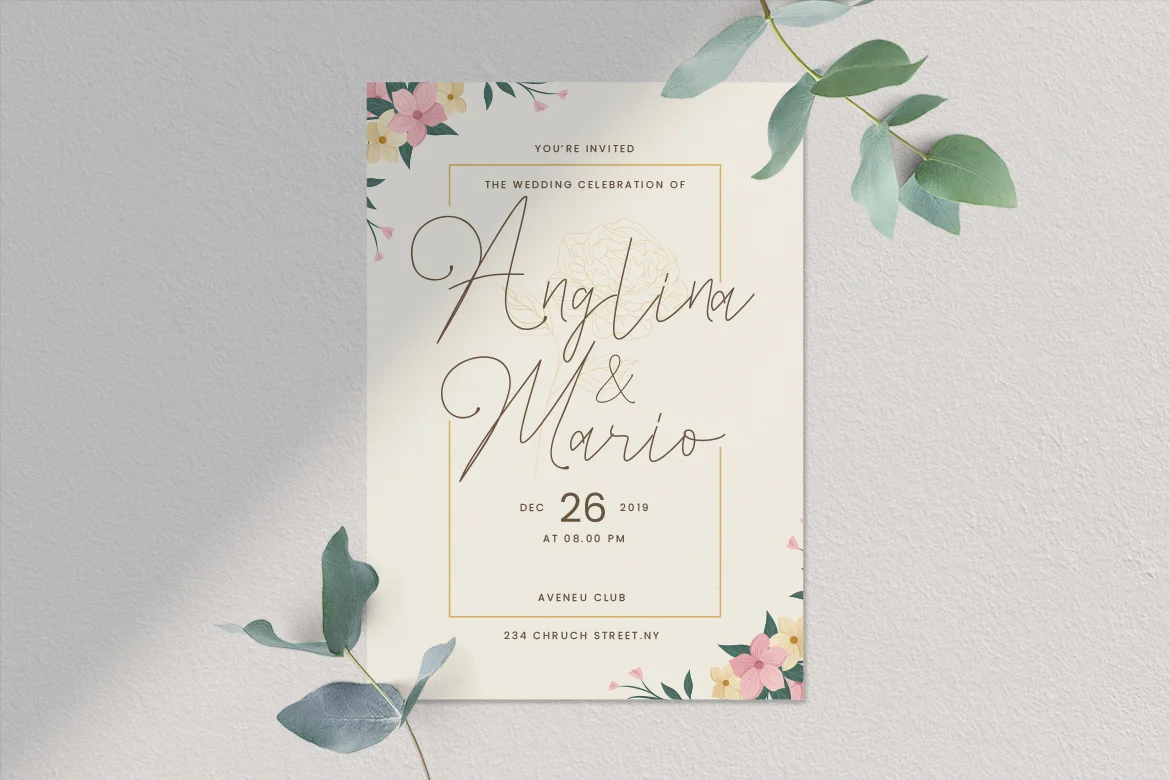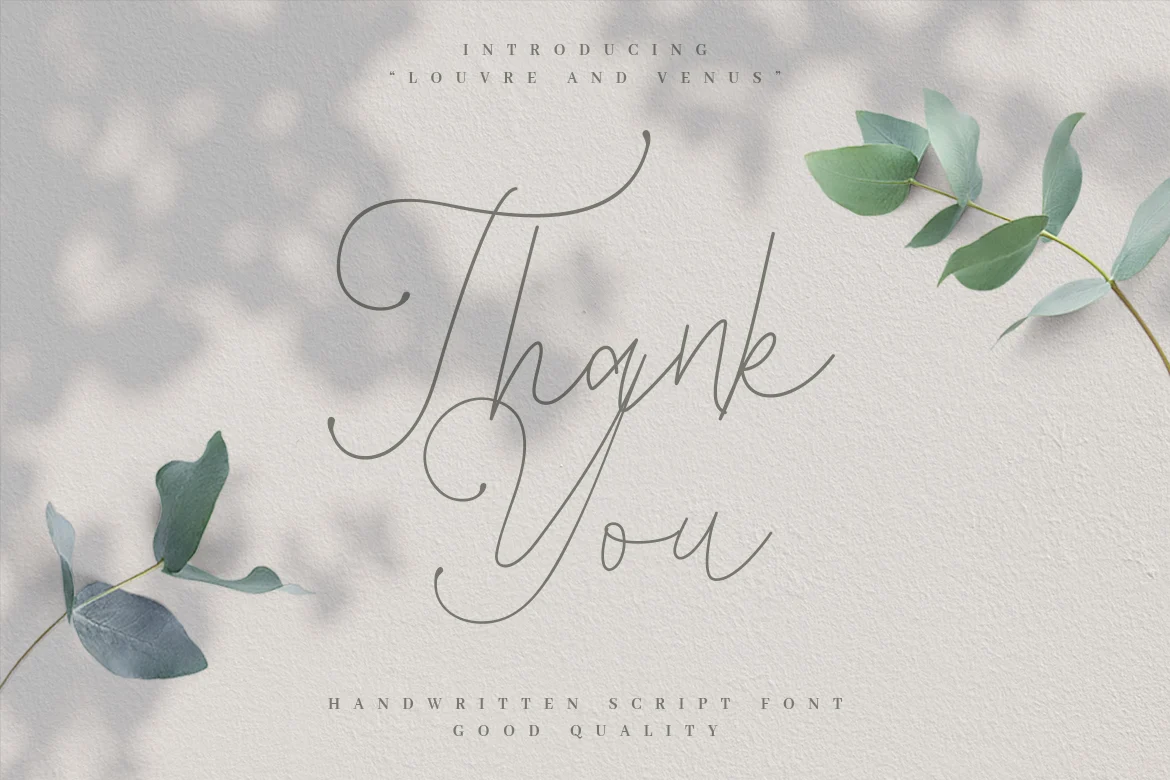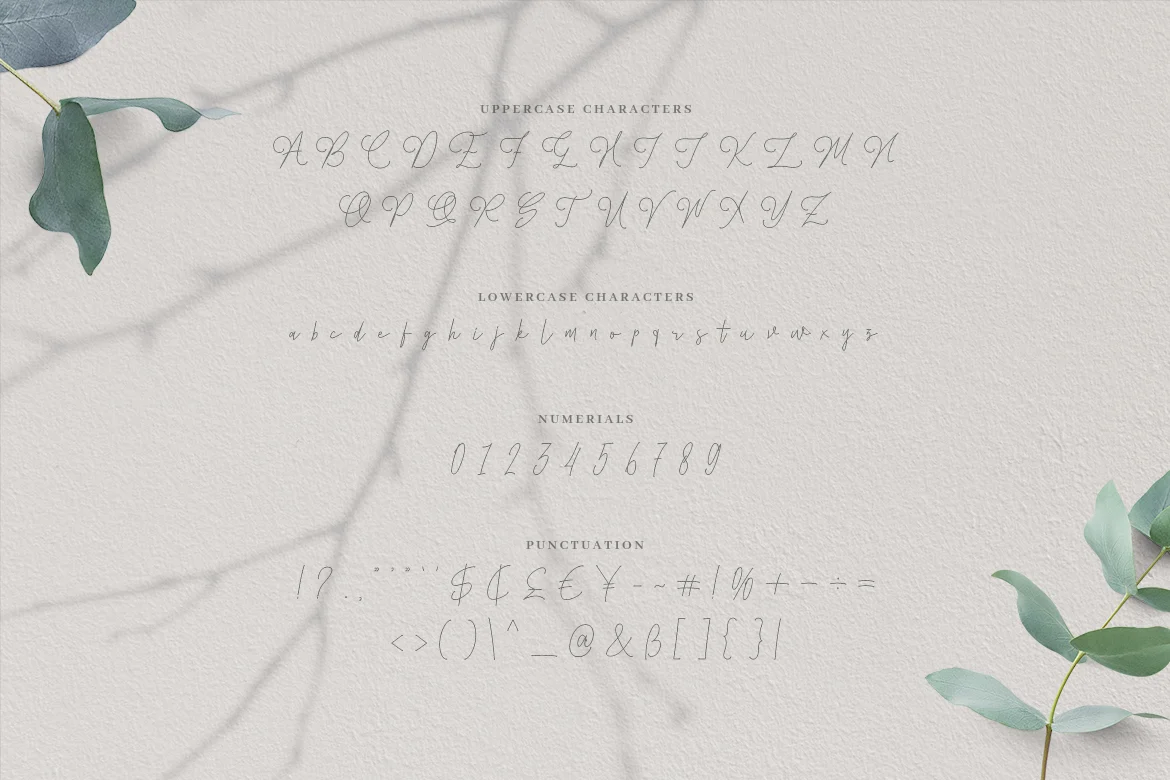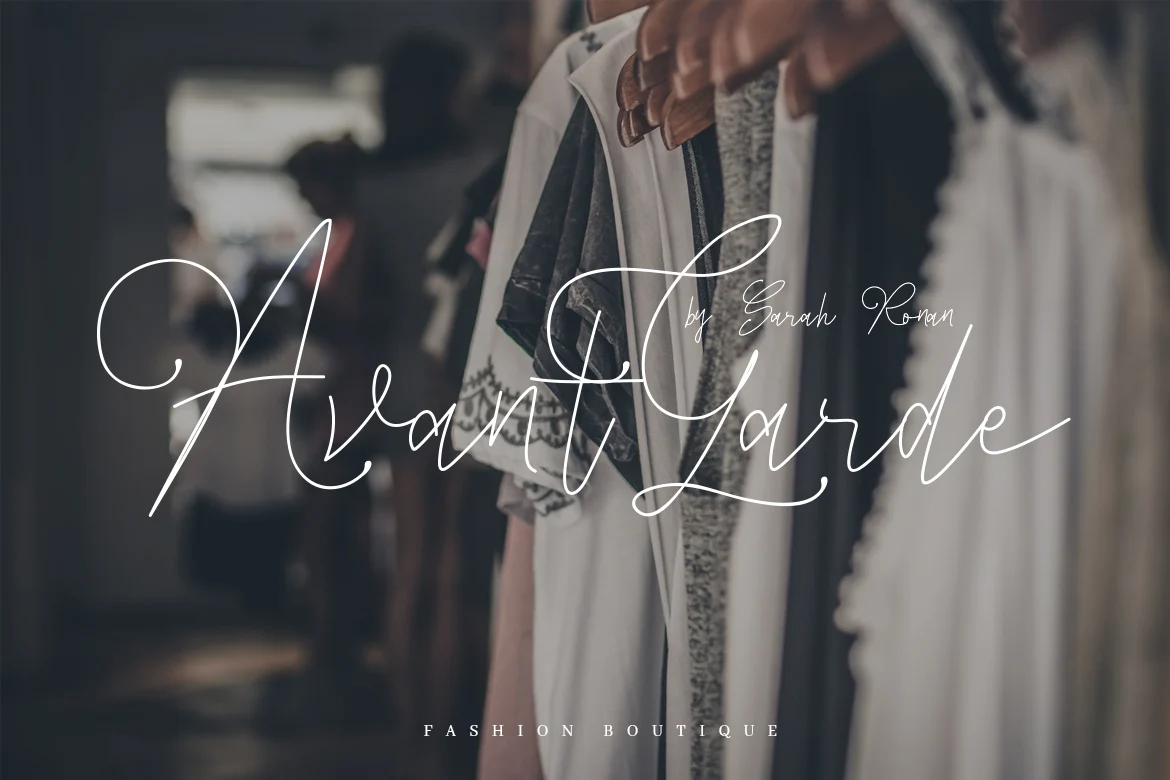
Louvre and Venus – Romantic Signature Font
Are you looking for an romantic signature font? We can help! Try to download our Louvre and Venus Signature font. The font is suitable to use for all all purpose. Try to use it on Wedding invitation, greeting card, poster, quotes, postcard, photography, branding, editorial, valentine and signature to see the best of it :)
- Basic Latin A-Z and a-z
- Numbers